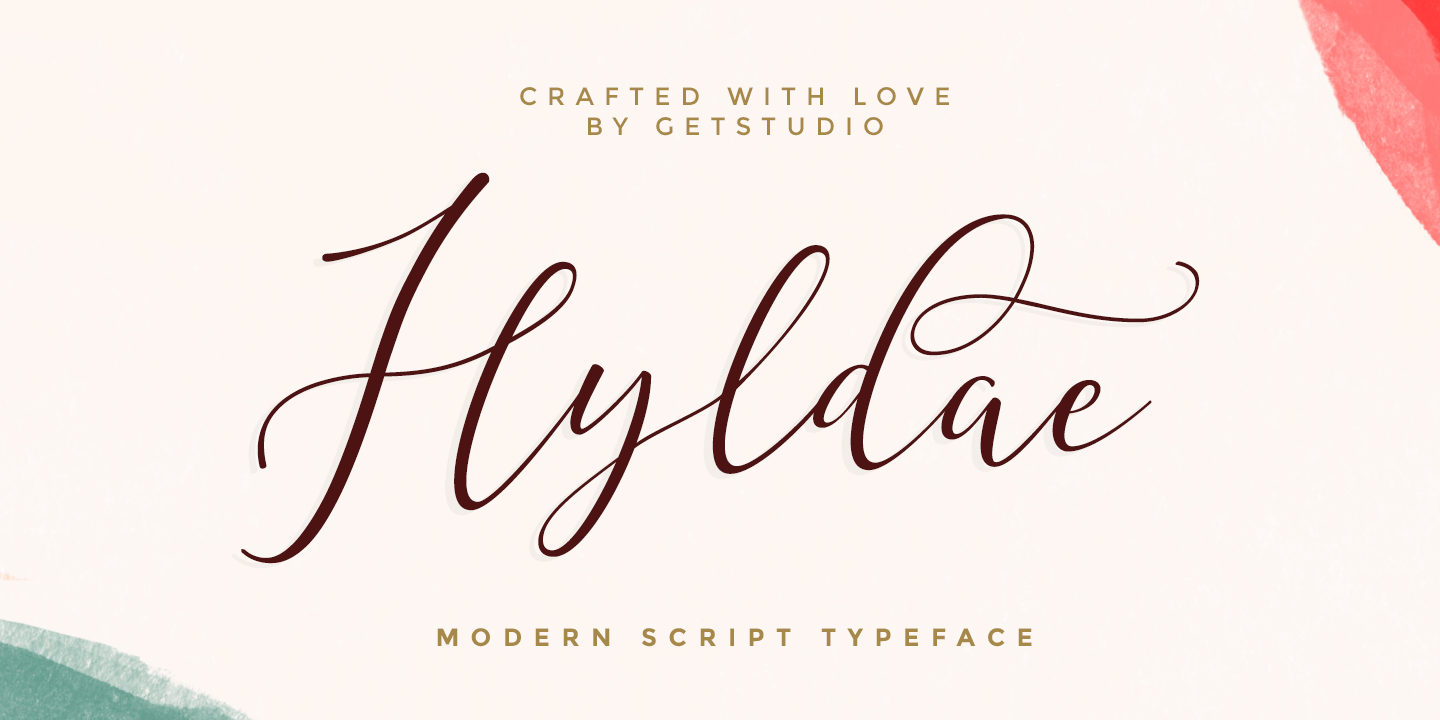
The Hyldae Script Font is an exquisite choice for projects that demand elegance, sophistication, and a personal touch. Imagine it gracefully adorning wedding invitations, adding a luxurious feel to high-end branding, crafting beautiful greeting cards, or enhancing the visual appeal of social media quotes. It's also perfectly suited for logo design, packaging for premium products, fashion editorials, and any design work where a refined, handcrafted aesthetic is desired to convey warmth and authenticity.
What makes the Hyldae Script Font so exciting is its unique blend of classic calligraphic artistry with modern legibility. Its flowing connections and delicate curves create a sense of bespoke craftsmanship, making every word feel uniquely written. This font doesn't just convey information; it adds an emotional layer, bringing a sense of charm and personalized elegance that truly captivates the viewer.
The Hyldae Script Font typically comes with a rich set of features to maximize its versatility. You can expect to find a Regular weight, often accompanied by numerous swashes, ligatures, and alternative characters that allow for extensive customization and a truly unique appearance for your text. These stylistic sets enable designers to create varied and beautiful compositions effortlessly. For those seeking a truly enchanting typeface, the Hyldae Script Font Free Download offers an exceptional opportunity to add a touch of refined beauty to your next creative project.